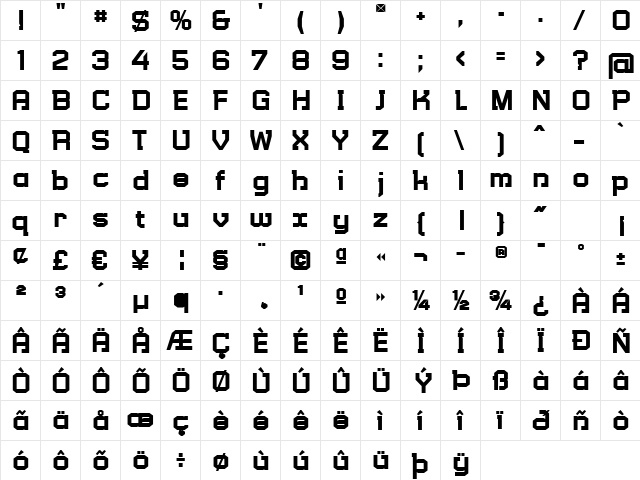
Verso Black
Design Context for Verso Typeface
Verso takes a measured approach to typography — its balanced proportions and neutral character make it a reliable workhorse for both digital and print work.